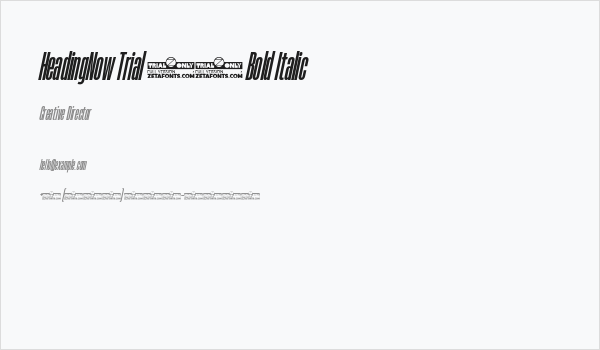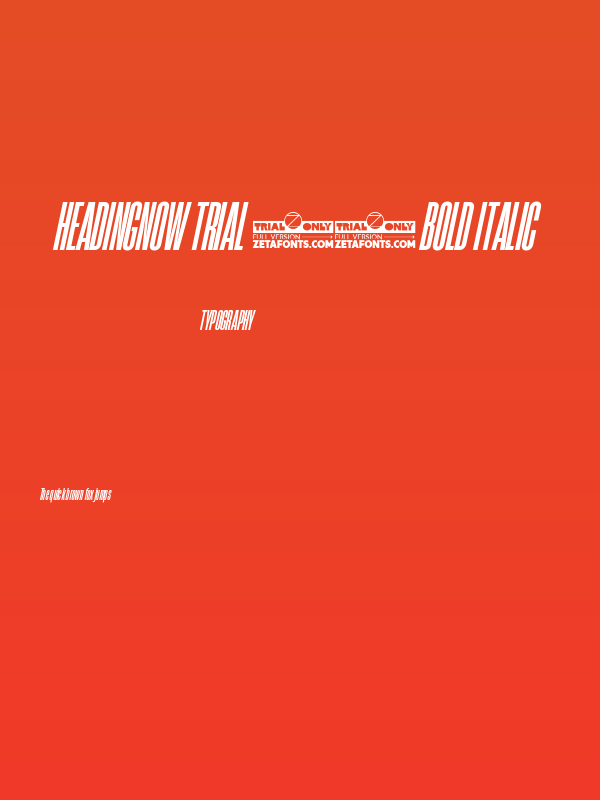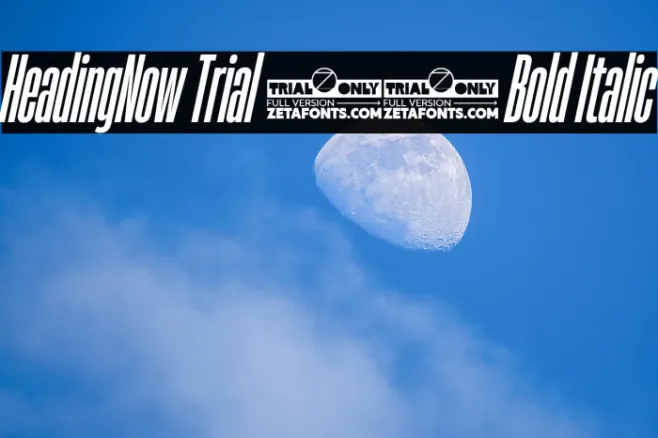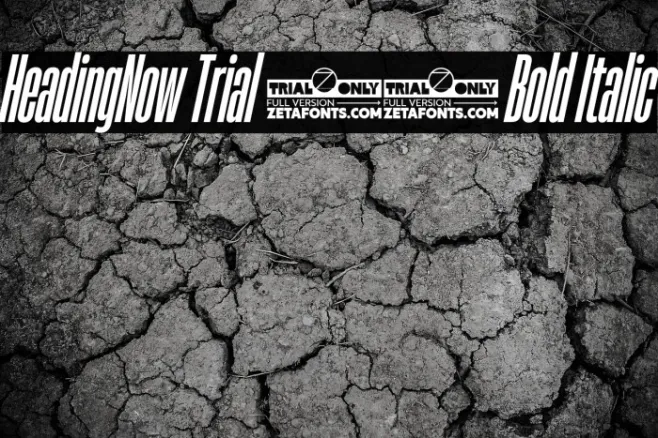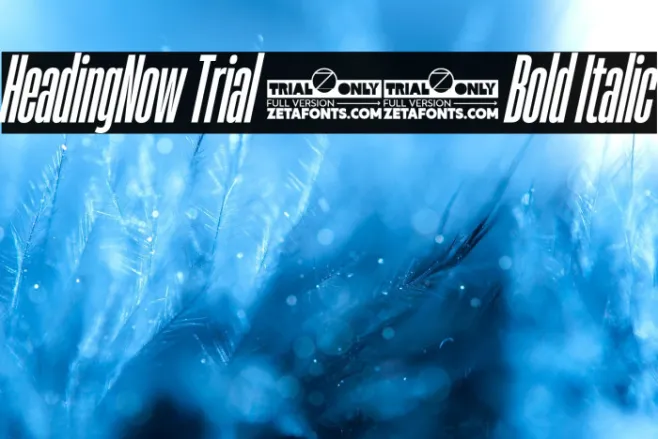
HeadingNow Trial 16 Bold Italic Font
HeadingNow Trial 16 Bold Italic Description
This font exhibits a bold and italicized style, characterized by its strong, slanted letterforms that convey a sense of urgency and dynamism. The uppercase and lowercase letters maintain a consistent slant, enhancing the italic effect. The strokes are thick and uniform, providing a bold appearance that stands out. The font includes a full set of uppercase and lowercase letters, numbers, and a variety of special characters, making it versatile for different uses. The overall design is modern and sleek, suitable for projects that require a strong visual impact.
| Proposed Projects | Ideal for headlines, posters, branding, and advertising where a strong, impactful statement is needed. |